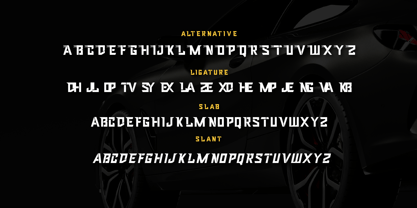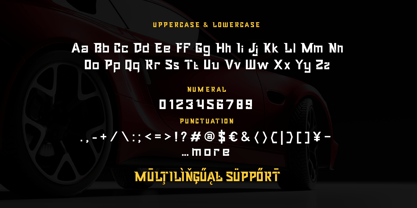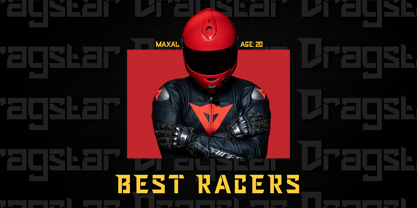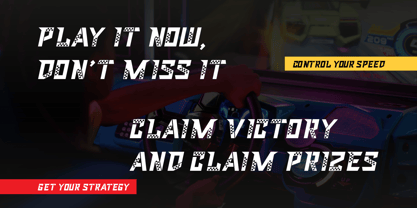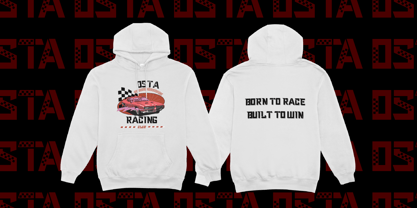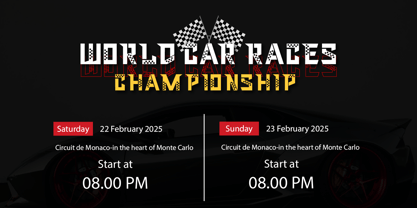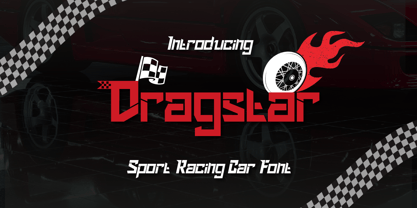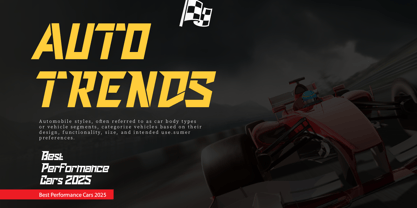
Dragstar
Die Schriftfamilie Dragstar wurde von Rozikan entworfen und von Twinletter veröffentlicht. Dragstar enthält 4 Stile und Familienpaketoptionen.
Ignite your designs with the power of Dragstar, a high-performance sport font tailored for racing enthusiasts. Featuring bold and aggressive letterforms, Dragstar brings the thrill of the racetrack to your projects. Perfect for team branding, merchandise, race schedules, and gaming interfaces, this font ensures a strong and energetic visual impact. Designed for professionals seeking a modern and edgy racing aesthetic, Dragstar is your go-to font for high-speed creativity.
- Fonts include Multilingual: Support for 85 languages.